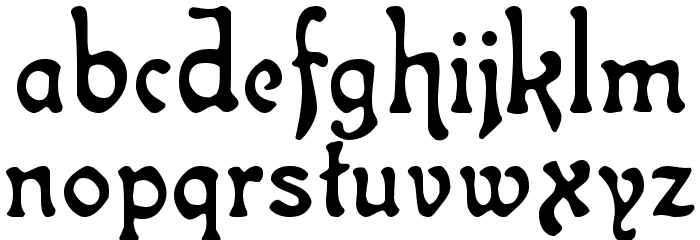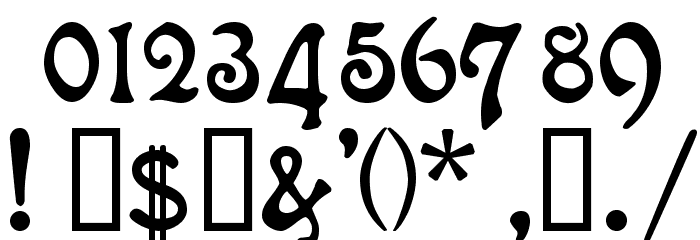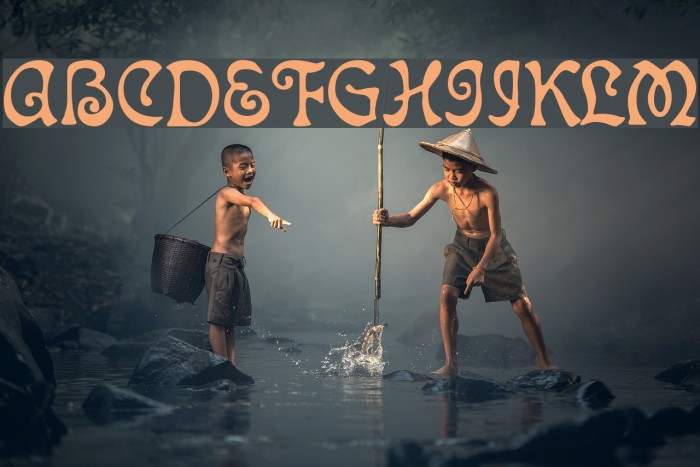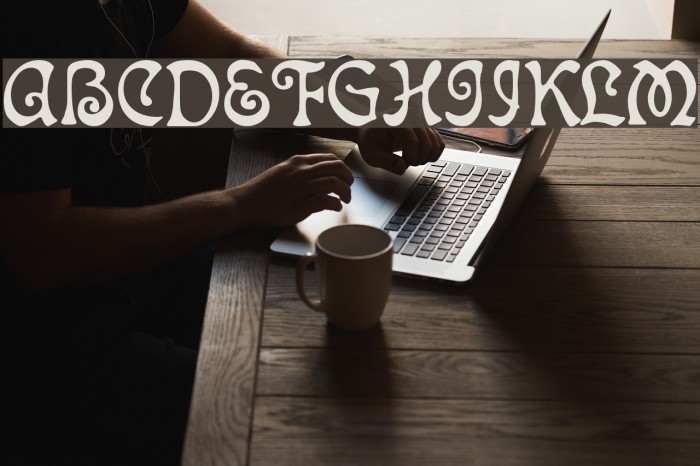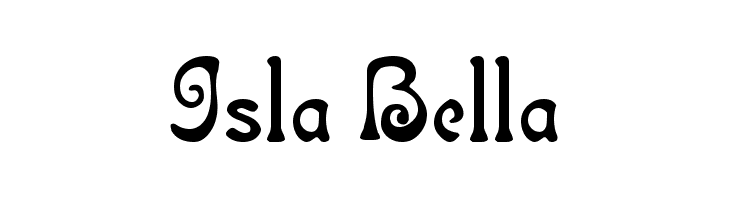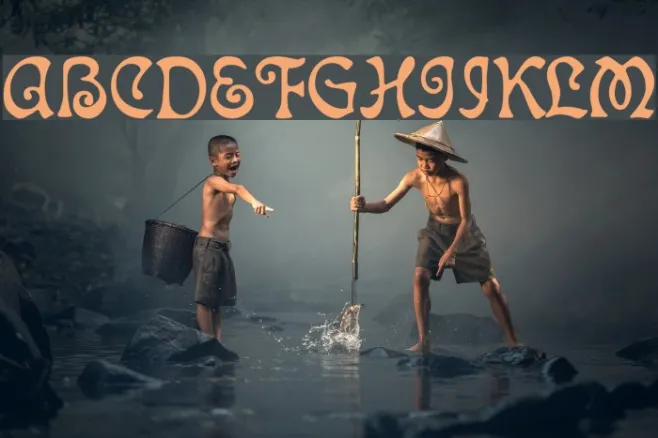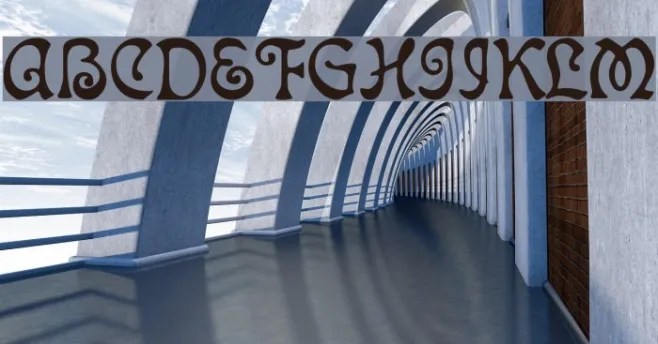
Isla Bella Font
This font features a whimsical and decorative style, characterized by its bold and playful curves. The uppercase letters exhibit a unique flair with exaggerated serifs and rounded edges, creating a sense of movement and energy. The lowercase letters maintain this playful aesthetic, with some characters having distinctive loops and swirls. Numbers and special characters are equally ornate, adding to the font's overall charm. The font's boldness and decorative nature make it stand out, suitable for projects that require a touch of creativity and fun.
A whimsical, decorative font with bold, playful curves and unique serifs.